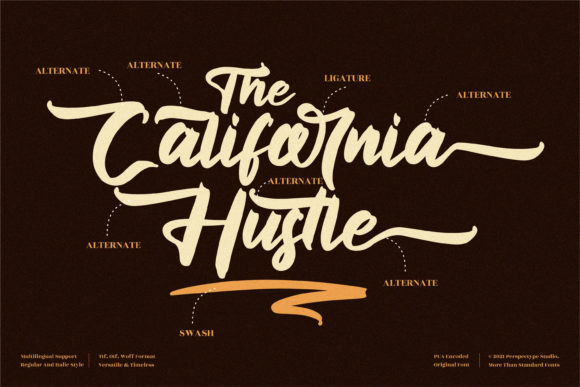
About The California Hustle Font
The California Hustle is a sophisticated and elegant handwritten font that exudes timeless charm. With its refined and personal touch, this font adds a touch of elegance to a wide range of designs, making it perfect for wedding invitations, thank you cards, greeting cards, logos, and various other projects.
The flowing and graceful letterforms of The California Hustle create a sense of sophistication and style. Each character is carefully crafted to maintain a harmonious balance between legibility and artistic flair. The strokes flow seamlessly, giving the font a natural and organic feel.
This font’s versatility allows it to be used in various design applications. For wedding invitations, The California Hustle adds a touch of romance and sophistication, setting the tone for a memorable event. Its graceful curves and intricate details bring a sense of elegance to thank you cards and greeting cards, making each message feel heartfelt and personal. When used in logos, The California Hustle creates a distinctive and memorable brand identity, leaving a lasting impression on your audience.
One of the advantages of The California Hustle is that it is PUA encoded, allowing easy access to all of its glyphs and swashes. This means you can effortlessly explore and incorporate the various decorative elements and alternate characters included in the font, giving you more creative freedom and flexibility in your designs.
Embrace the timeless beauty of The California Hustle and let it add a touch of elegance and personalized style to your designs. Whether you’re creating wedding stationery, branding materials, or heartfelt messages, this font will enhance your creations with its refined and sophisticated charm.